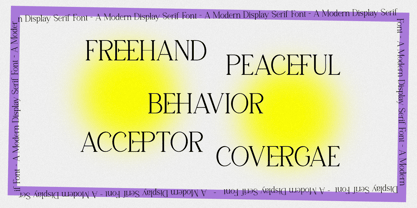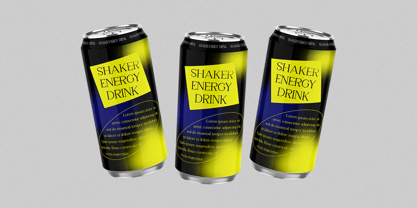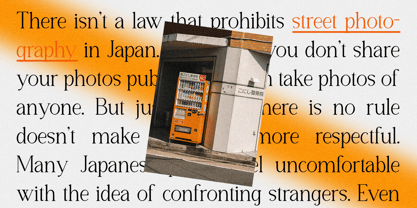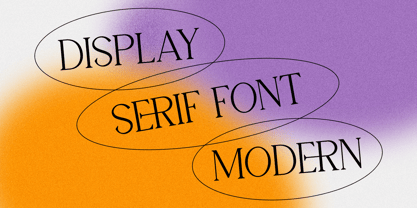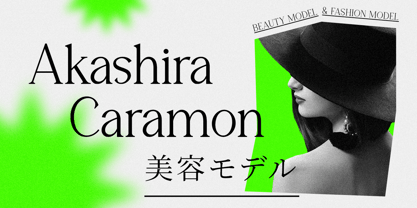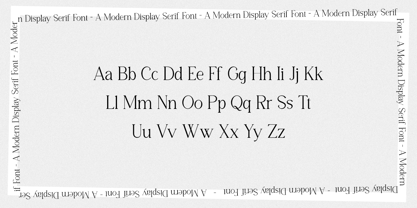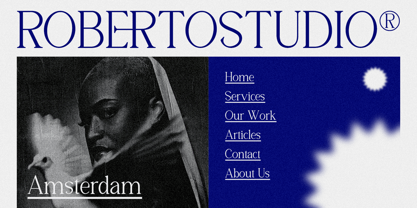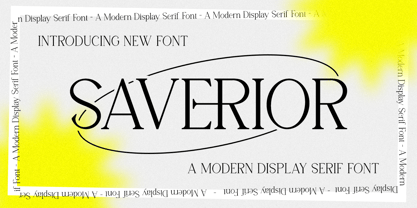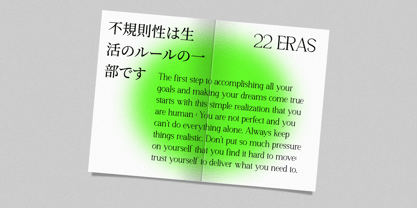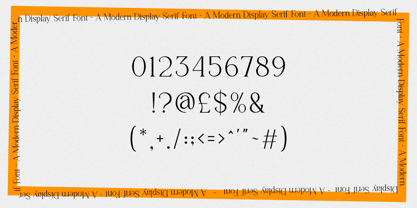
Saverior
by Rockboys Studio
The Saverior Font Family was designed by Hayinah and published by Rockboys Studio. Saverior contains 1 styles.
Saverior is an elegant and thin lettered serif font. It maintains its classy calligraphic influences while feeling contemporary and fresh. Fall in love with it and bring your projects to the highest levels!